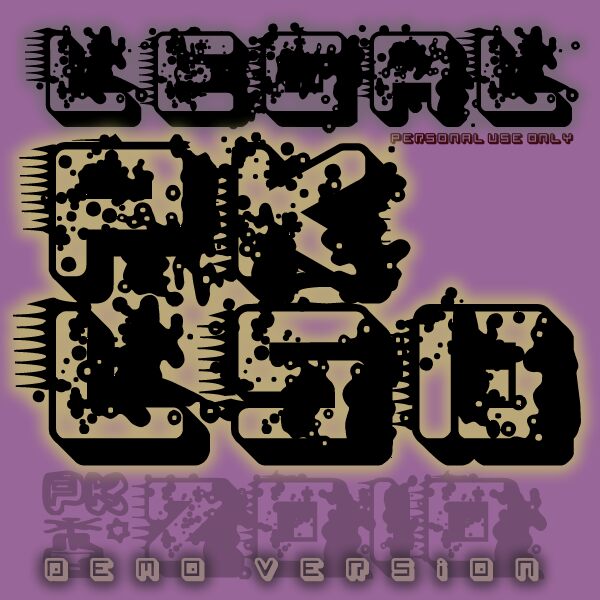
Pk LSD by Paintblack is a free distorted decorative display font with broad, rounded letters buried under unruly ink splashes. Heavy outlines keep the main shapes recognizable beneath scattered dots, blotches, and rough intrusions. The texture is deliberately messy.
Its splatter pattern can merge lettering with paint-streaked illustrations on music posters and album artwork. Skate merchandise and streetwear graphics also suit the abrasive surface, especially when the type becomes part of an all-over print. These uses share an interest in graffiti, noise, and physical ink.